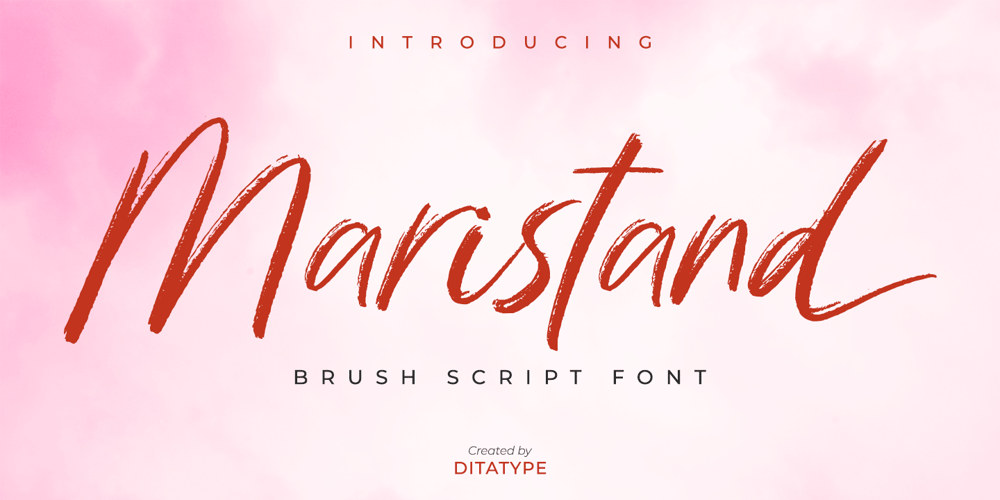
Maristand
Maristand font
Maristand Font Family was designed by Donis Miftahudin and published by Ditatype. Maristand contains 1 styles and family package options. Maristand is a beautiful brush font. It brings a elegant and attractive typeface. Made for any professional project branding. It is the best for logos, branding, wedding and quotes.Includes:Maristand (OTF)Features: Stylistic Set Beautiful Ligatures Multilingual Support PUA Encoded Numerals and Punctuation Thank you for downloading premium fonts from Dita Type